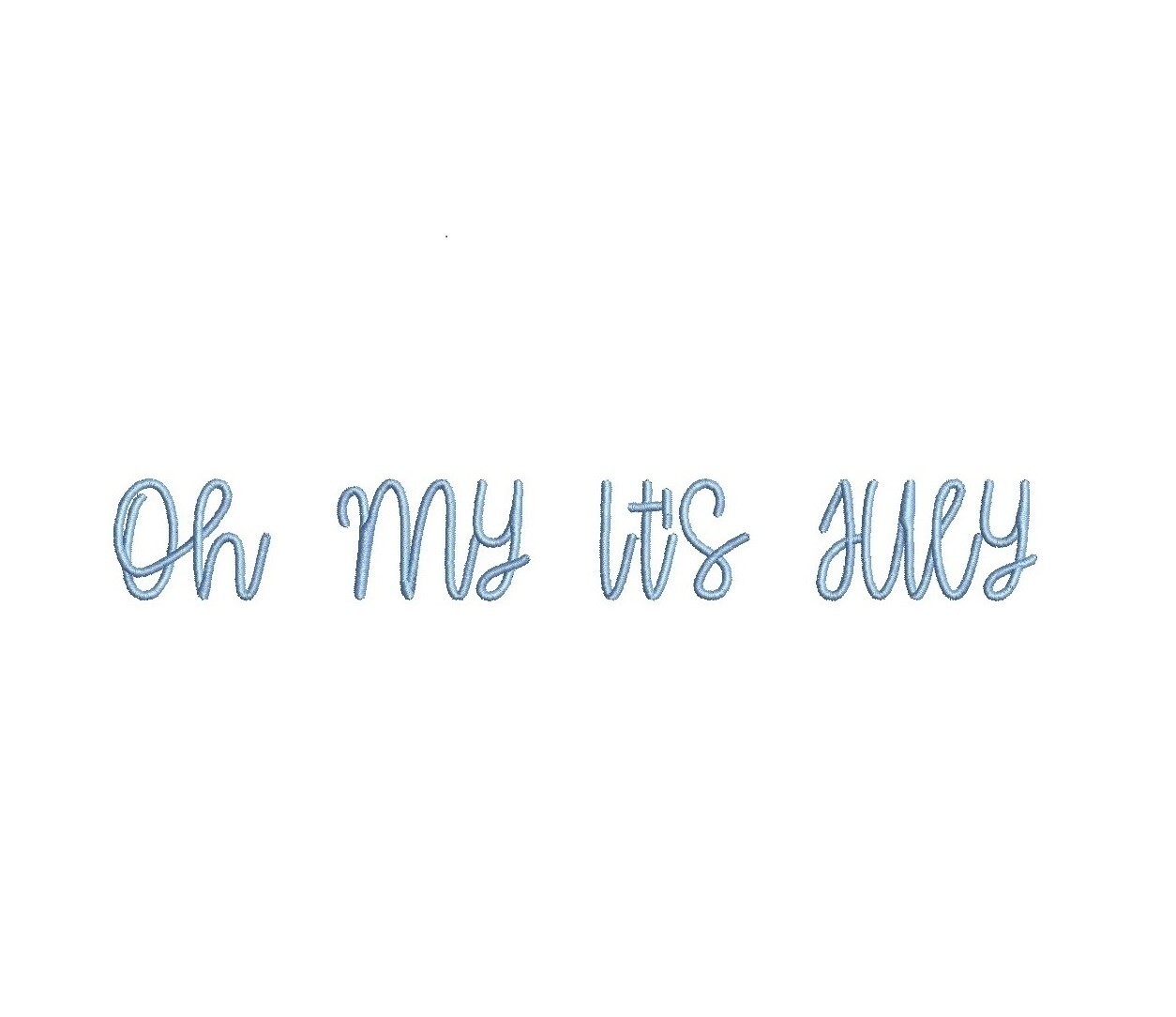
Discover the perfect font for your creative embroidery projects with Oh My Its July Regular ESA! This versatile font is not only visually appealing but also fully compatible with popular software like Wilcom Studio e4.5.6 and Hatch 3 versions and up. Elevate your designs with this exceptional font that adds a touch of elegance and charm to any project. Its smooth stitches and precise detailing ensure flawless embroidery results, while its compatibility with the latest software versions guarantees a seamless design process. Don't miss out on this must-have font for your embroidery toolkit. Unlock new possibilities and create stunning designs effortlessly!